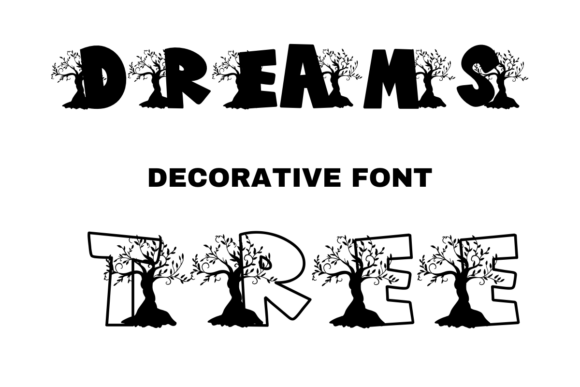
Unlock the Power of Nature in Your Designs
As a designer, have you ever felt stuck in a creative rut, yearning for that one font that perfectly captures the essence of your project’s theme? For me, it was a late-night brainstorming session for a fantasy novel cover. I was searching for the perfect font to transport readers to a mystical world, and that’s when I stumbled upon the enchanting Dreams Tree Font.
This bold, imaginative decorative font seamlessly blends nature and typography, making it the perfect fit for projects centered on fantasy, eco-friendly themes, or Halloween-inspired design. With its hand-drawn look and dramatic silhouette, Dreams Tree Font adds a unique touch to any design, from posters to logos and book covers. Whether you’re an experienced designer or just starting out, this font is sure to inspire your creativity and help your message stand out.
Dreams Tree Font Key Features
- Unique Characteristics: Hand-drawn, whimsical design with a mix of natural and fantastical elements; perfect for creative, artistic, or fantasy-themed projects
Dreams Tree Font Review
I recently had the chance to work with the Dreams Tree Font and I must say it’s an interesting choice for designers. ✨ One thing that stands out is its unique, whimsical feel, making it perfect for projects that require a touch of magic or fantasy.
Another strength of this font is its versatility. It comes in a range of styles and weights, allowing designers to experiment with different moods and atmospheres. ✨ I found it particularly useful for creating titles and headings that needed to convey a sense of wonder or curiosity.
- ⚠️ The Dreams Tree Font can be overwhelming if used extensively throughout a design. Its playful nature can quickly become too much, disrupting the overall flow and readability of the content.
- ⚠️ Some of the characters, especially the punctuation marks, can be difficult to read, particularly at smaller font sizes.
Overall, I think the Dreams Tree Font is a great addition to any designer’s toolkit. While it may not be suitable for every project, it’s perfect for those that require a touch of magic and whimsy. With careful use, it can add a unique and captivating element to your designs.
Getting the Most Out of Dreams Tree Font
Here are some tips for getting the most out of Dreams Tree Font:
- Use the font in combination with other whimsical elements to create a unique and eye-catching design.
- Use the font to add a touch of elegance and sophistication to your design.
Dreams Tree Font is ideal for:
- Event branding and marketing materials.
- Personalized gifts and stationery.
- Whimsical and dreamy illustrations